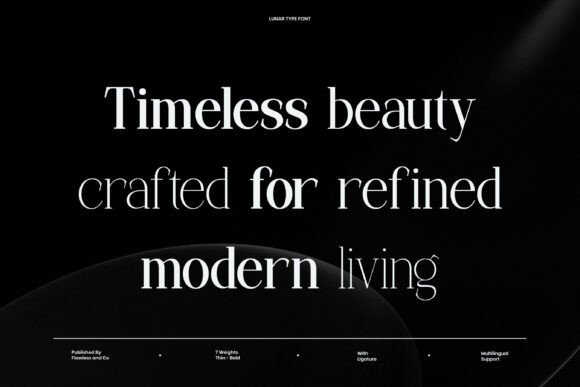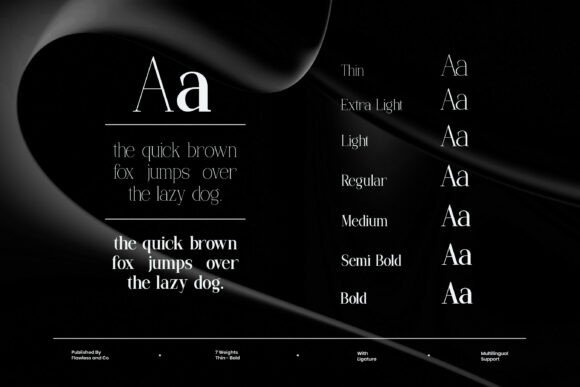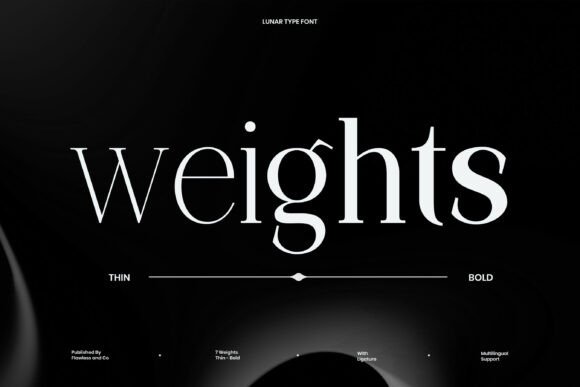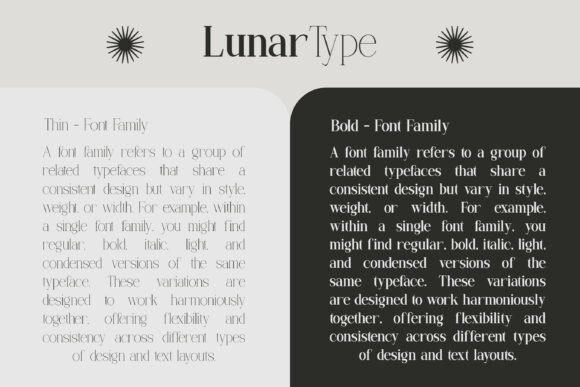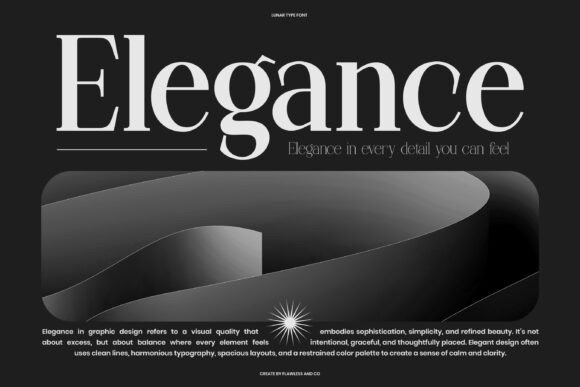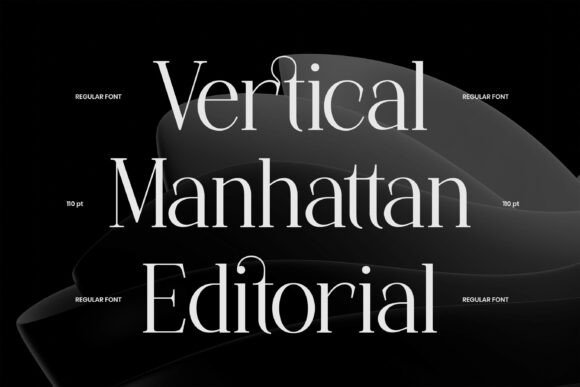
Introduction to Lunartype Font
You’re staring at your computer screen, scrolling through design inspiration boards, and suddenly, the perfect font pops up. It’s clean, sophisticated, and instantly elevates your creative project. This is often the moment when designers discover a game-changing design resource – and for many, it’s the Lunartype Font.
This refined serif family font is more than just a pretty face; it’s a versatile tool for designers seeking to create high-quality, premium visual identities. With its harmonious balance of thin and bold weights, the Lunartype Font is perfect for editorials, fashion lookbooks, and minimalist design systems that demand understated luxury.
Key Features of Lunartype Font
- High-quality, professional font designed for creative projects and design resources.
- Features a transparent background, making it ideal for use on various backgrounds and designs.
- Designed with a unique, elegant style that is perfect for use in logos, headings, and body text.
Honest Review: Lunartype Font
I recently stumbled upon the Lunartype Font, and I must say, it’s a fantastic addition to any designer’s toolkit. ✨ The free download made it an instant win in my book, and the high quality of the font speaks for itself. The clean lines and elegant feel make it perfect for a wide range of creative projects.
One of the standout features of the Lunartype Font is its versatility. It’s suitable for both digital and print designs, and the transparent background option allows for seamless integration into any design. Whether you’re working on a logo, brochure, or website, this font is sure to elevate your design.
- Perfect for digital and print designs
- Elegant and clean feel
- May not be suitable for bold, heavy text (due to its elegant feel)
- Not as extensive a font family as some other options
Overall, I’m thoroughly impressed with the Lunartype Font. It’s a solid design resource that’s sure to become a staple in my toolkit. With its free download and high-quality design, it’s a must-try for any designer working on a creative project.